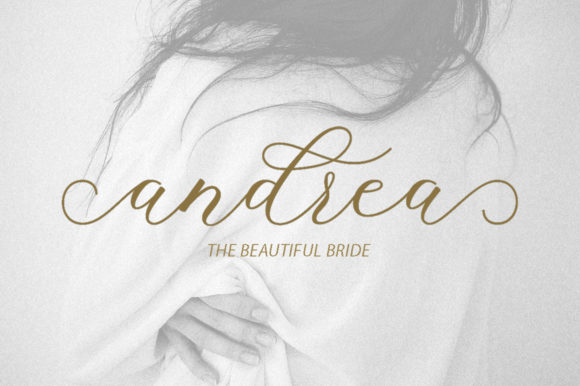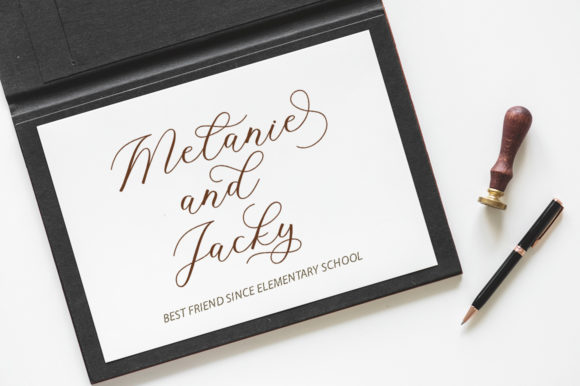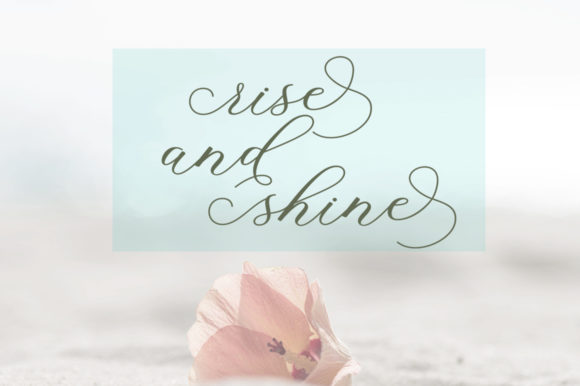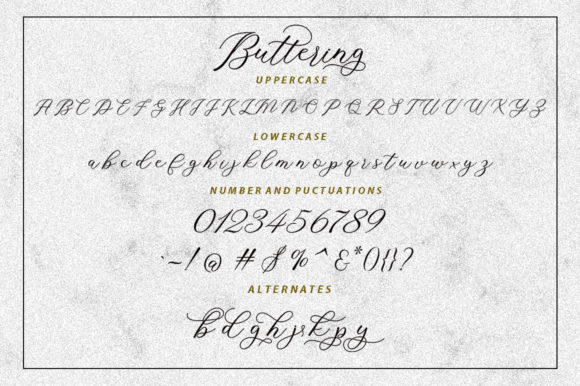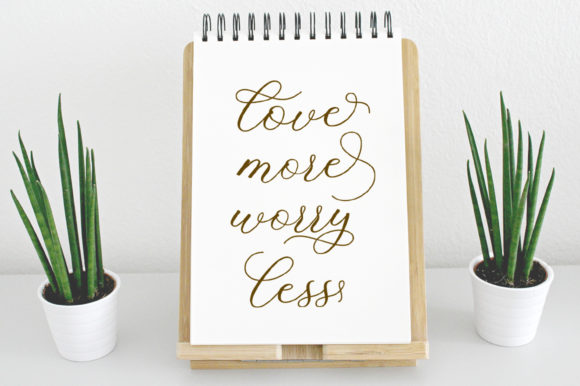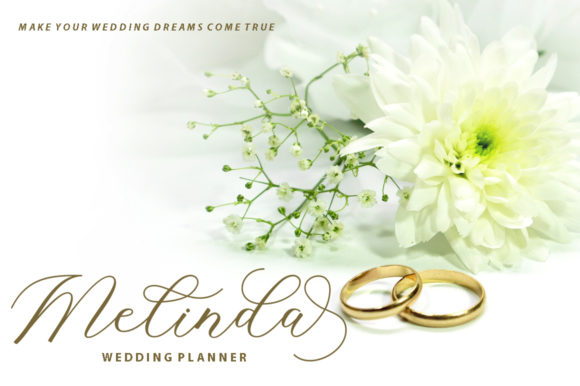
Buttering Font
About Buttering Font
The Buttering is an elegant calligraphy font. It has a casual style and includes beautiful swashes which can be used for logos, wedding invitations, branding, headlines, signage, labels, signatures, book covers, posters, quotes and more.